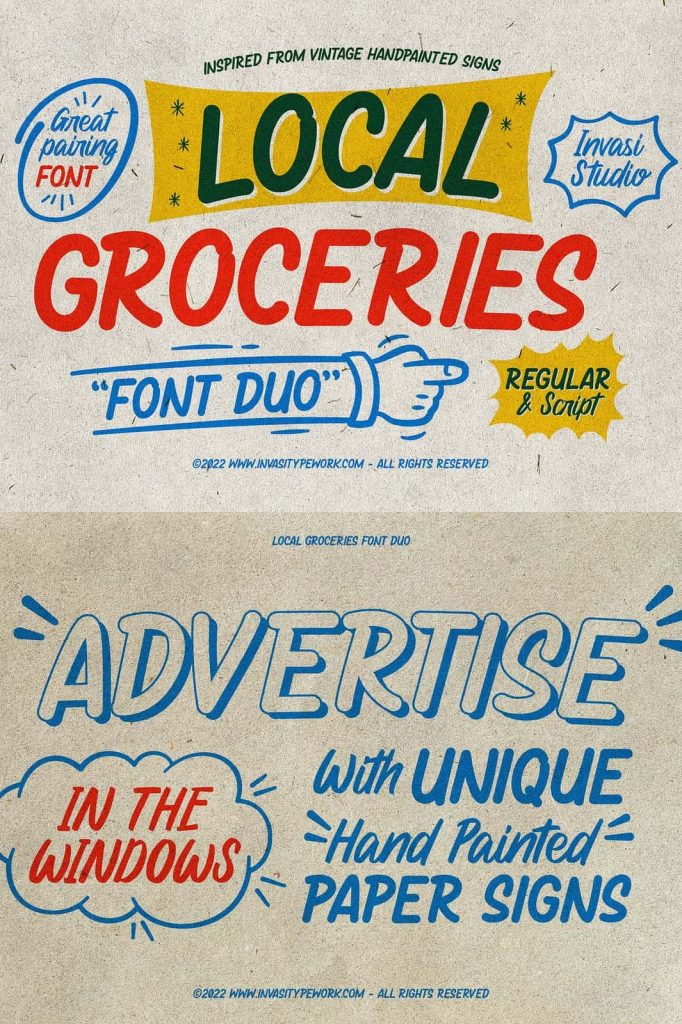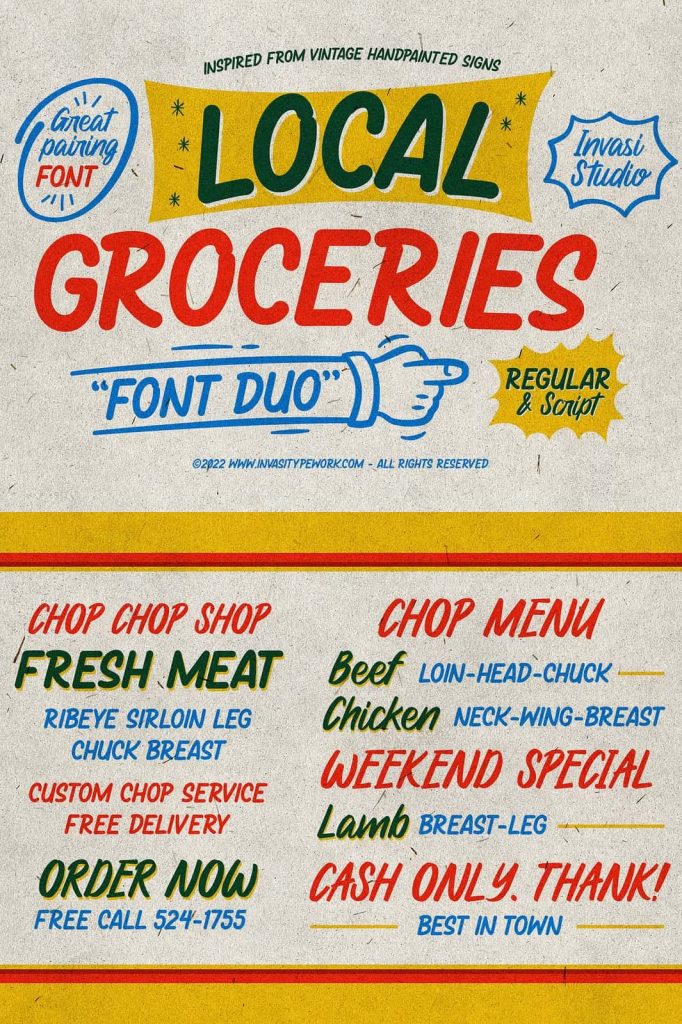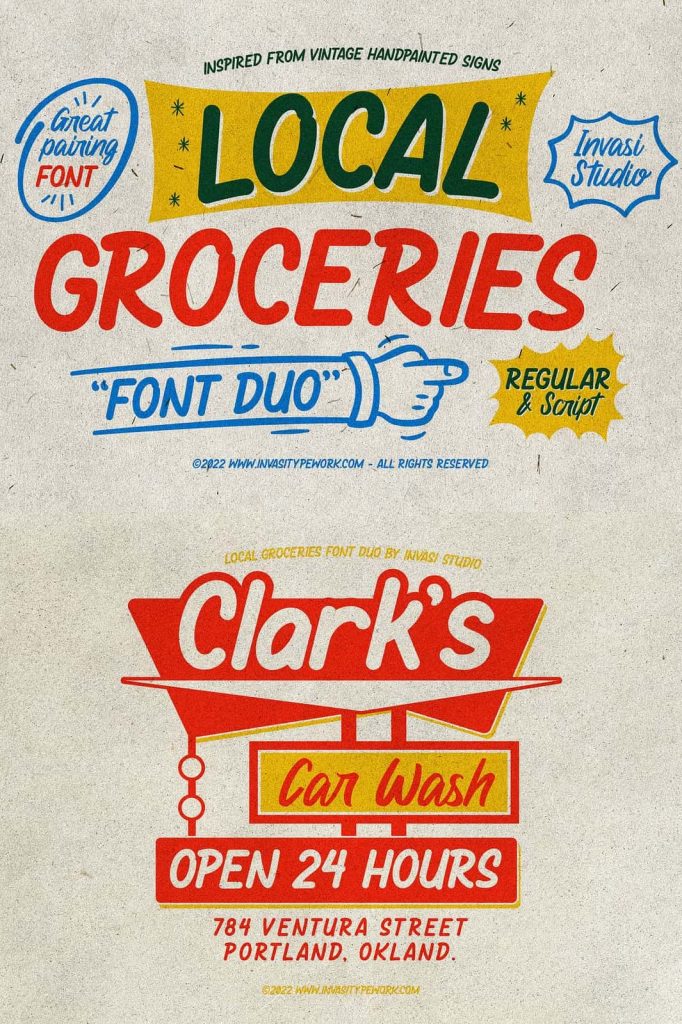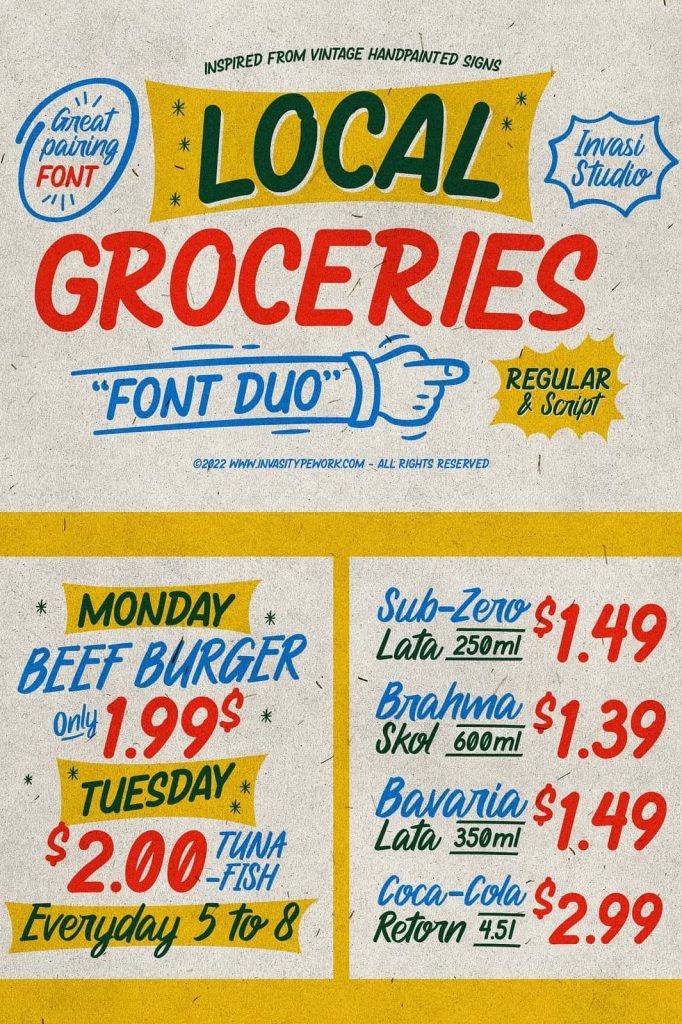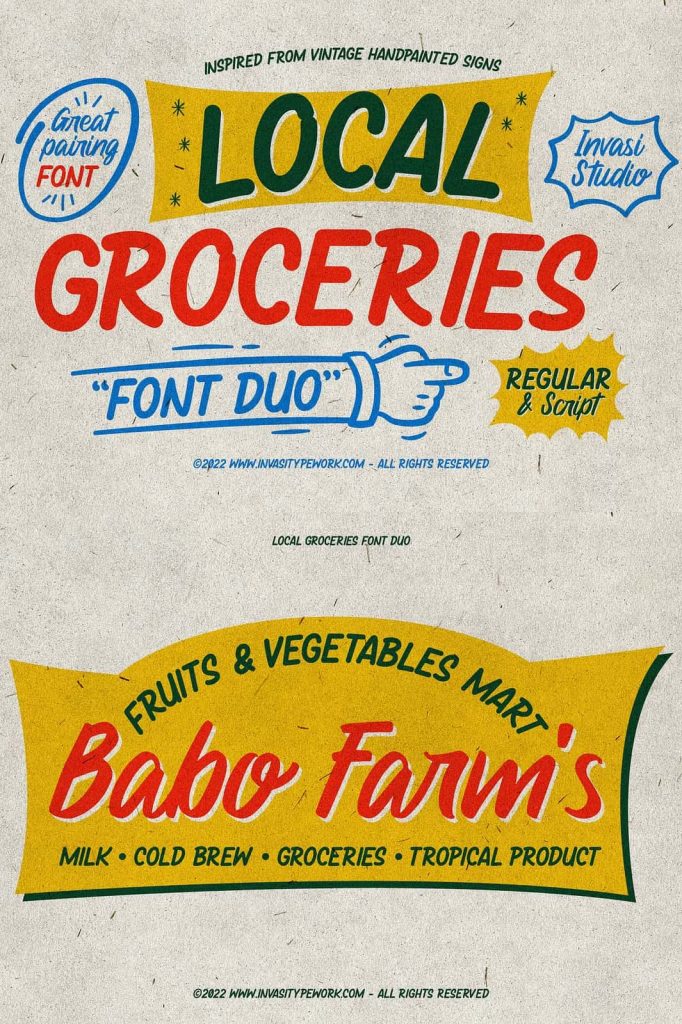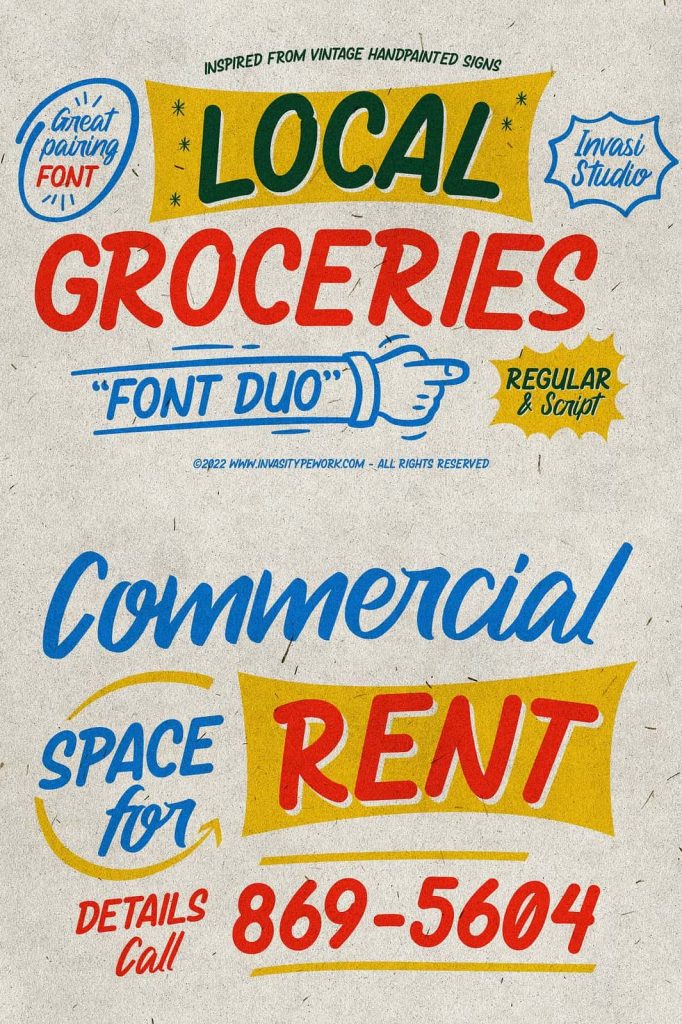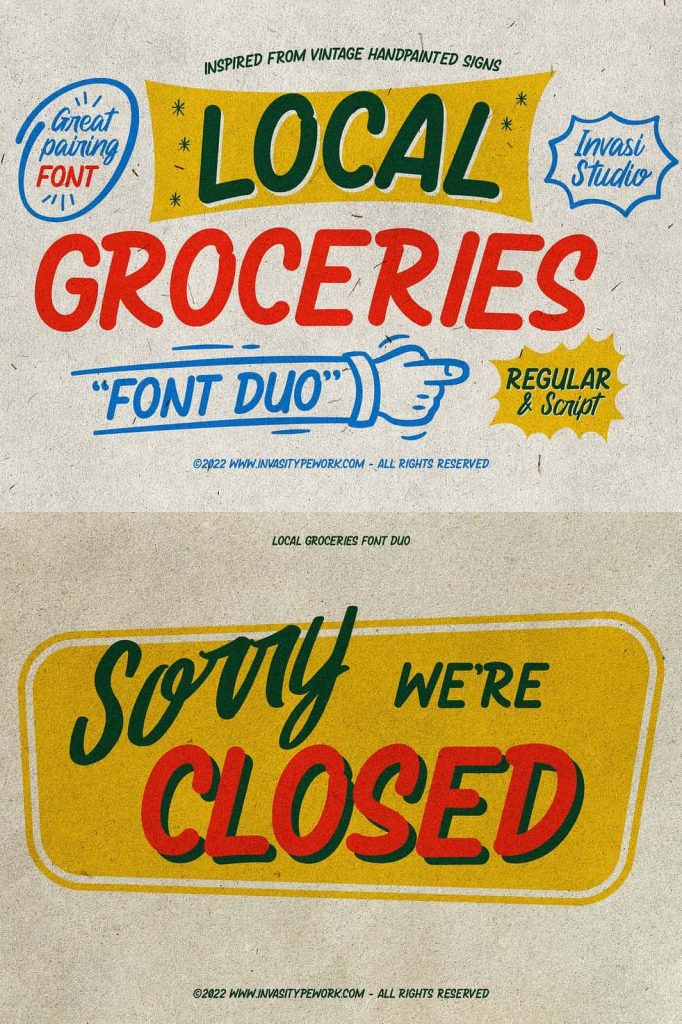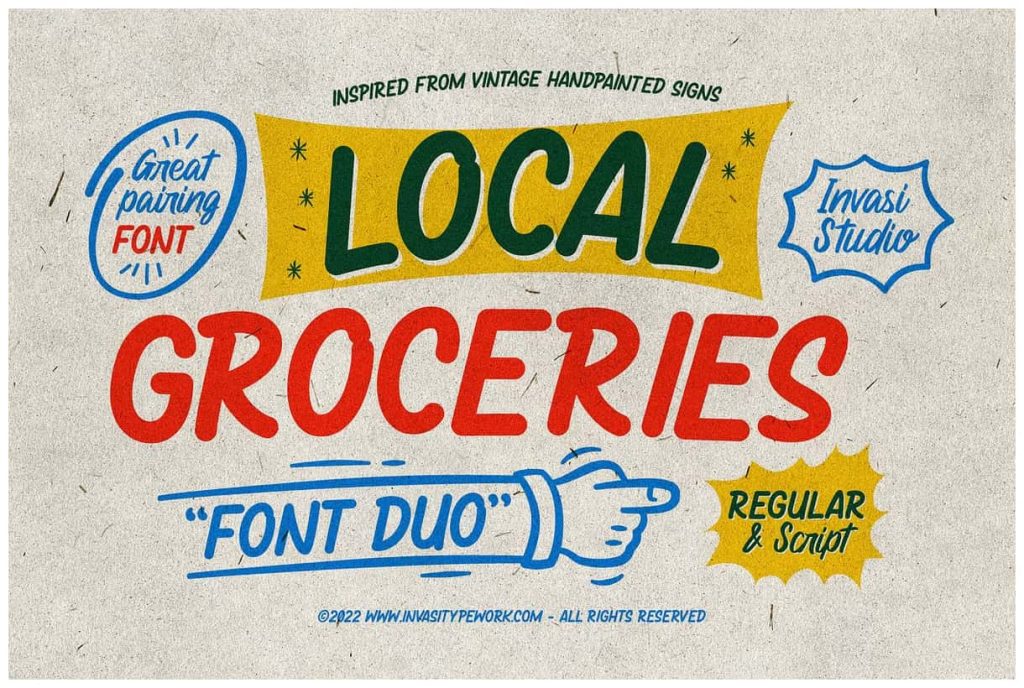
Local Groceries – Vintage Sign DuoleastedApril 30, 2025Fonts Inspired by the hand-painted paper signs typically seen in grocery stores during the 1920s to 1970s. Download